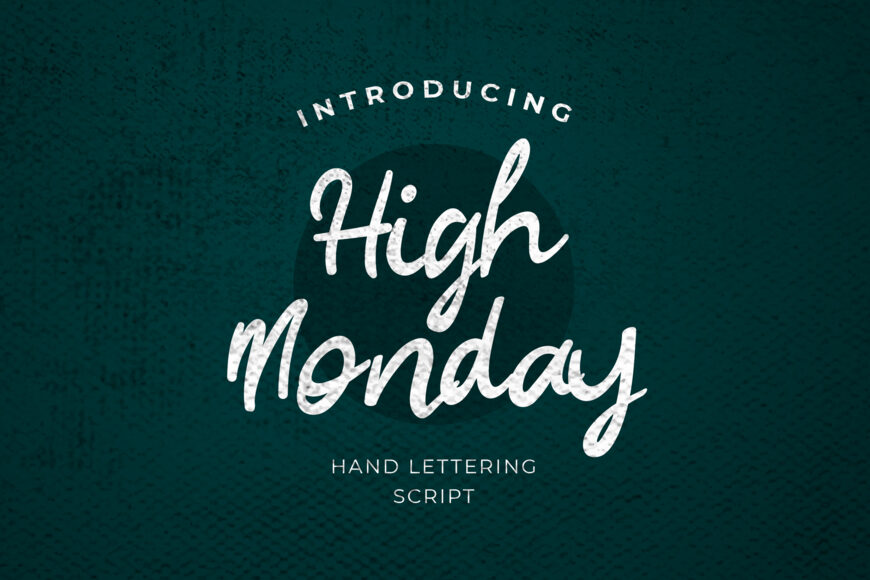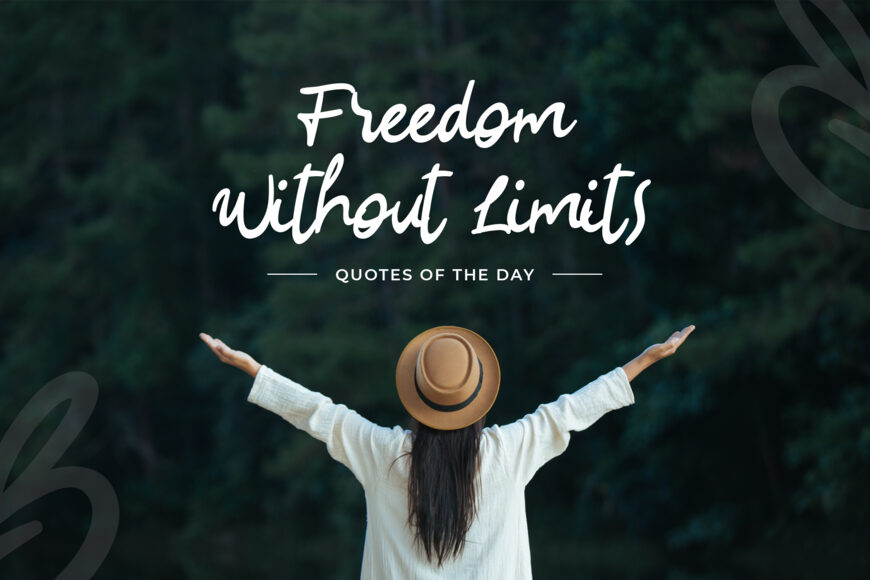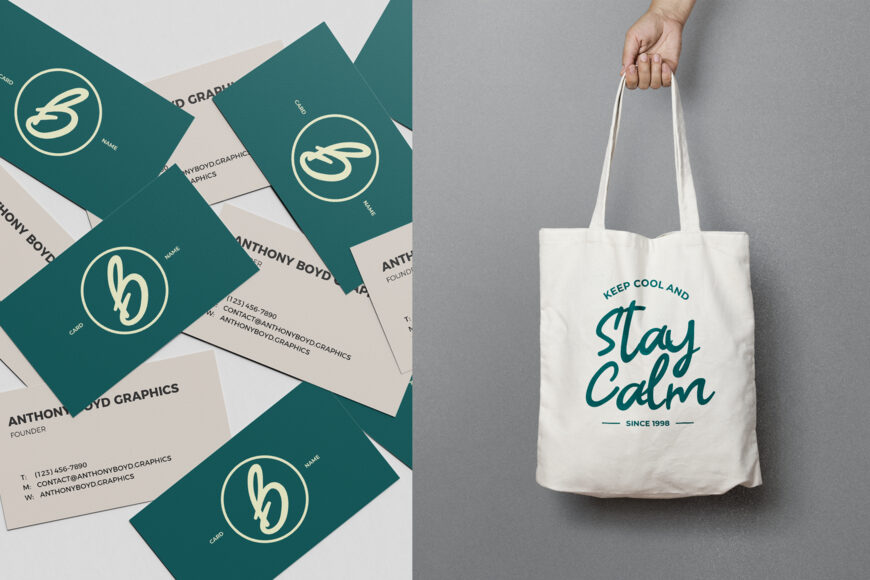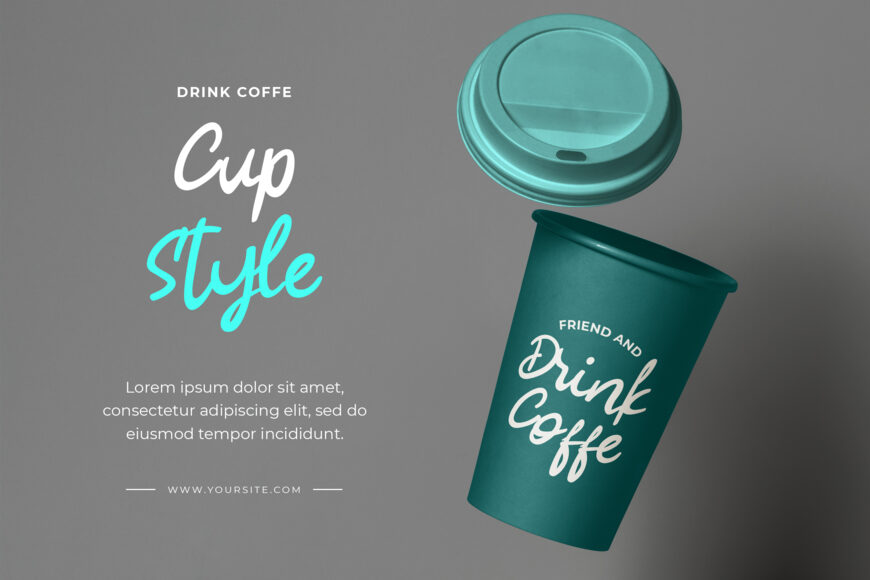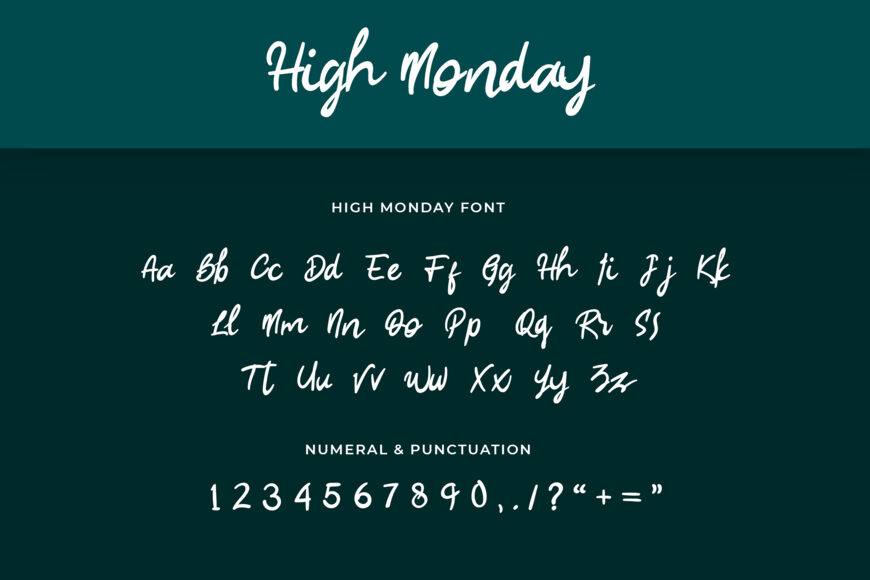
High Monday Font
High Monday is a fun and friendly handwritten font. This versatile script font has a wide range of applications ranging from greeting cards to kids’ crafts, and is guaranteed to add a sweet touch to your next design.